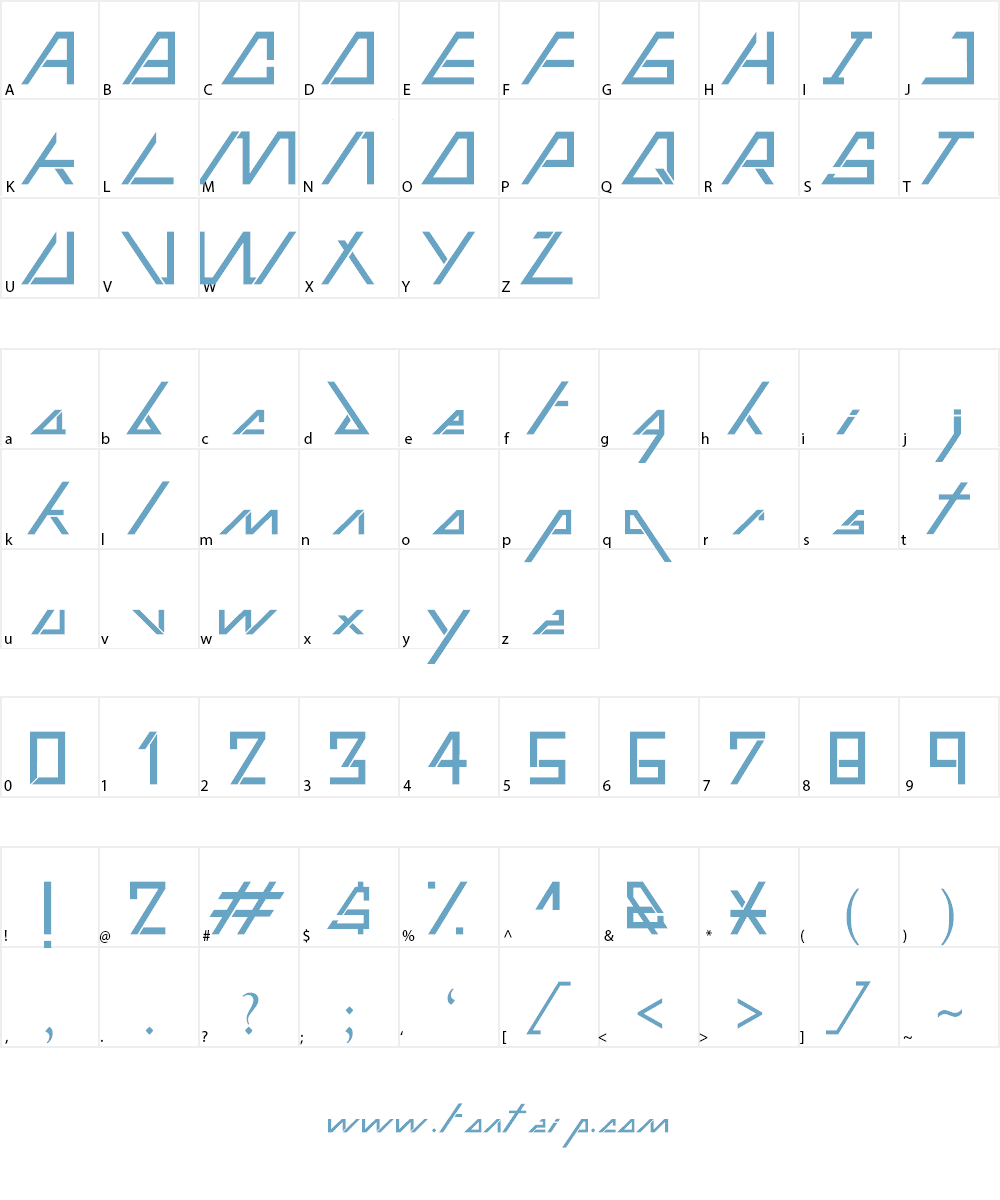
Font name is Tringo.Basic inspiration is triangle.It is an energetic and bold font.Alphabets looks like perspective witch looks like road.it can use for vedio games racing cars and movies poster.